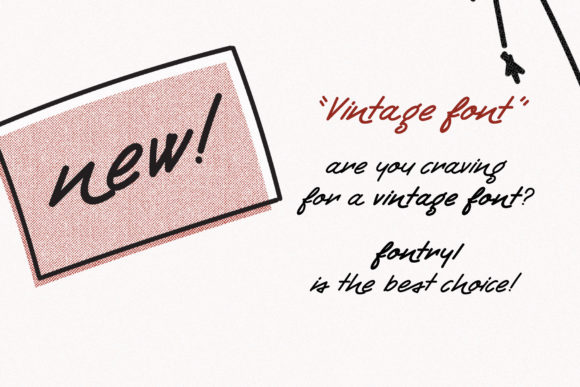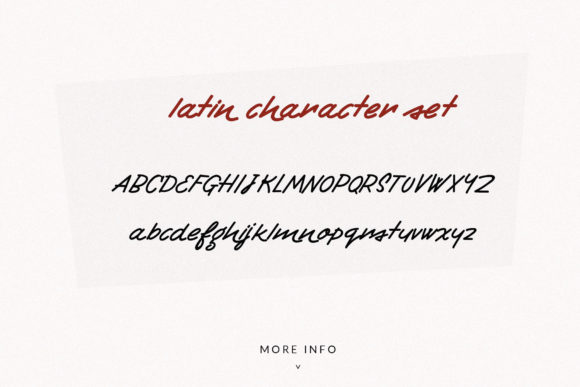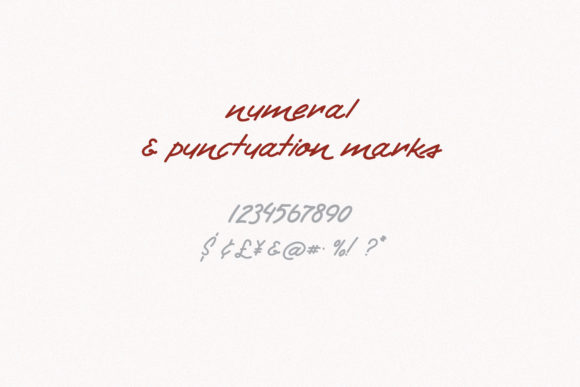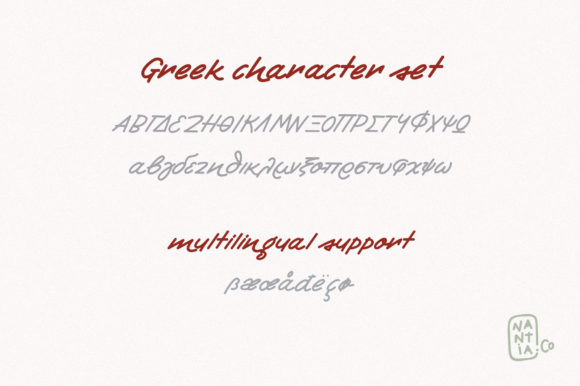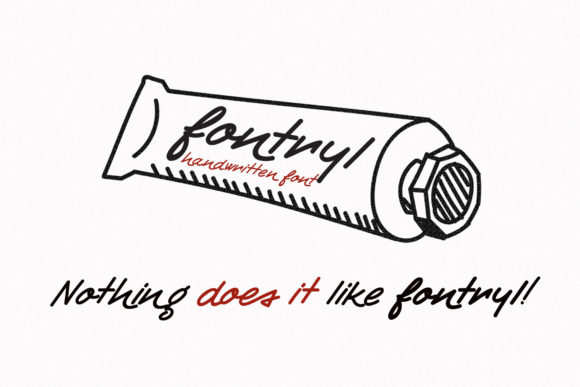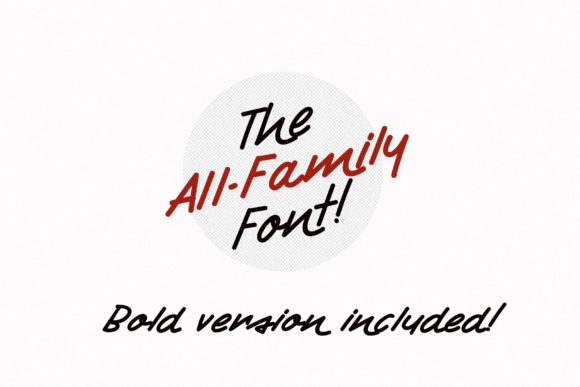
The Retro Charm of Fontryl Font: A Designer’s Delight
I’ll never forget the time I was working on a vintage-themed project for a client, and I just couldn’t find the right font to bring it all together. The design was almost there, but it was missing that special something to make it pop. That’s when I stumbled upon Fontryl Font, and let me tell you, it was love at first sight! 💕
With its bold, retro charm, Fontryl Font instantly elevated my design and exceeded my client’s expectations. I knew right then and there that I had to share this amazing font with fellow designers, crafters, and creative hobbyists. So, let’s dive in and explore what makes Fontryl Font so extraordinary!
An Honest Review of Fontryl Font
What I Love About Fontryl Font ✨
- 💥 Bold and eye-catching: Fontryl Font has a confident, bold feel that’s perfect for making any design stand out.
- 🎨 Retro charm: This font has a unique, vintage vibe that’s reminiscent of classic posters and advertisements from the past.
- 🤩 Highly versatile: Fontryl Font can be used for a wide range of projects, from branding and packaging to social media graphics and more.
- ✅ Easy to read: Despite its bold feel, Fontryl Font is surprisingly easy to read, even in smaller sizes.
While Fontryl Font is an amazing addition to any design project, there are a few things to keep in mind:
- ⚠️ Not ideal for body text: Due to its bold feel, Fontryl Font is best used for headings, titles, and short paragraphs. It may not be the best choice for longer blocks of text.
- 🤔 Limited availability of variations: While Fontryl Font comes with some great OpenType features, it may not have as many variations as some other fonts on the market.
The Backstory of Fontryl Font
While the origins of Fontryl Font are shrouded in mystery, it’s said that the font was inspired by classic posters and advertisements from the 1950s and 60s. The designer, a lover of vintage design and typography, set out to create a font that would evoke the same sense of nostalgia and charm.
Q: What type of projects is Fontryl Font best suited for?
A: Fontryl Font is perfect for projects that require a bold, eye-catching font, such as branding, packaging, social media graphics, and more.
Q: Does Fontryl Font come with OpenType features?
A: Yes, Fontryl Font includes a range of OpenType features, including Stylistic Alternates, Glyphs, and more.